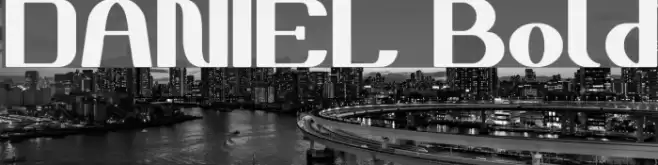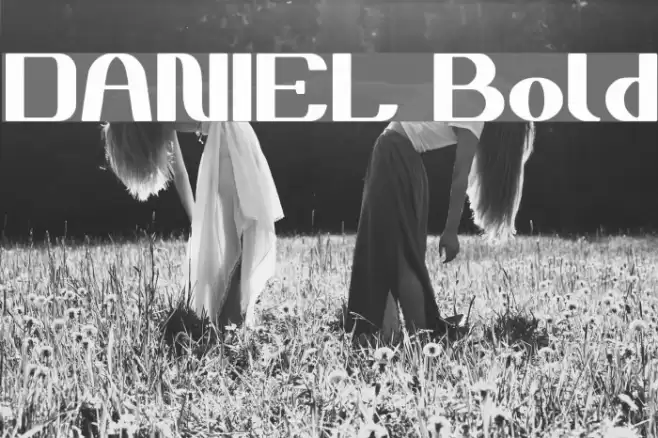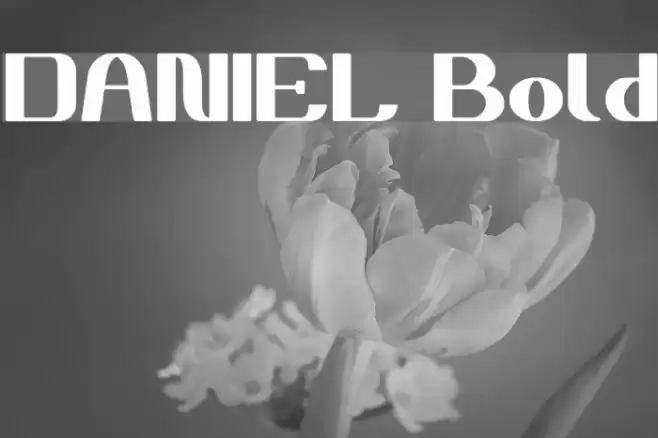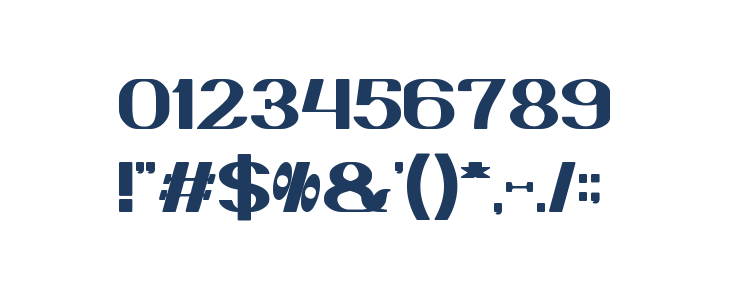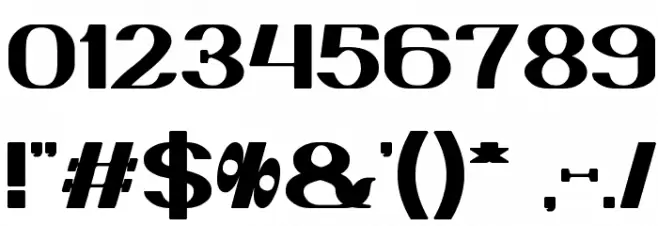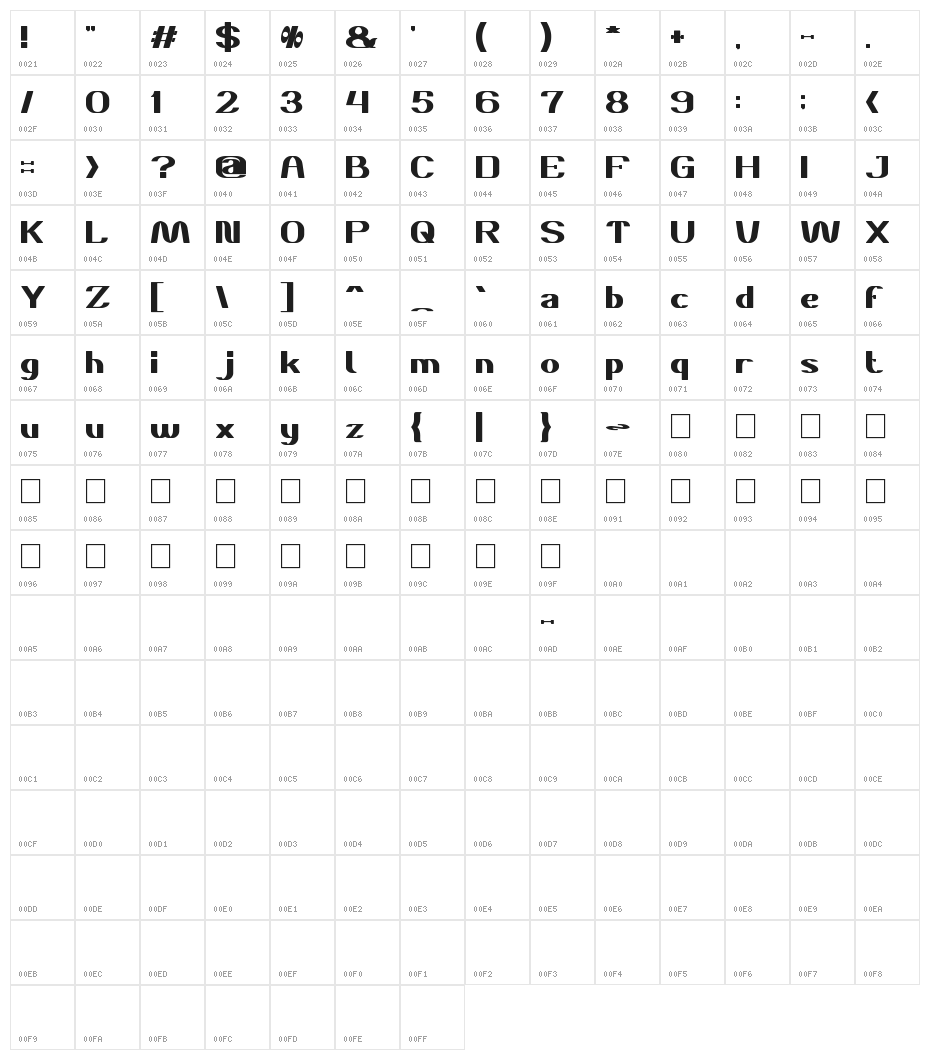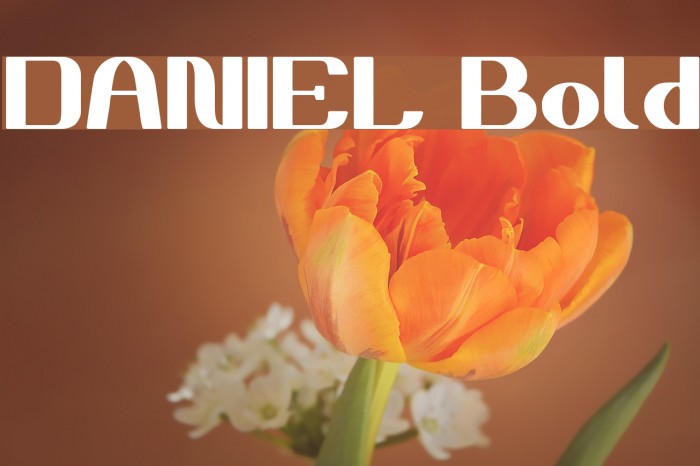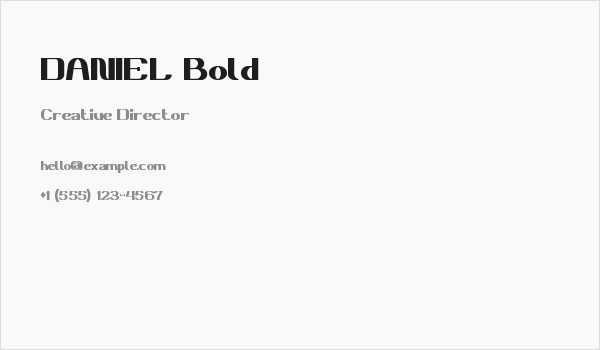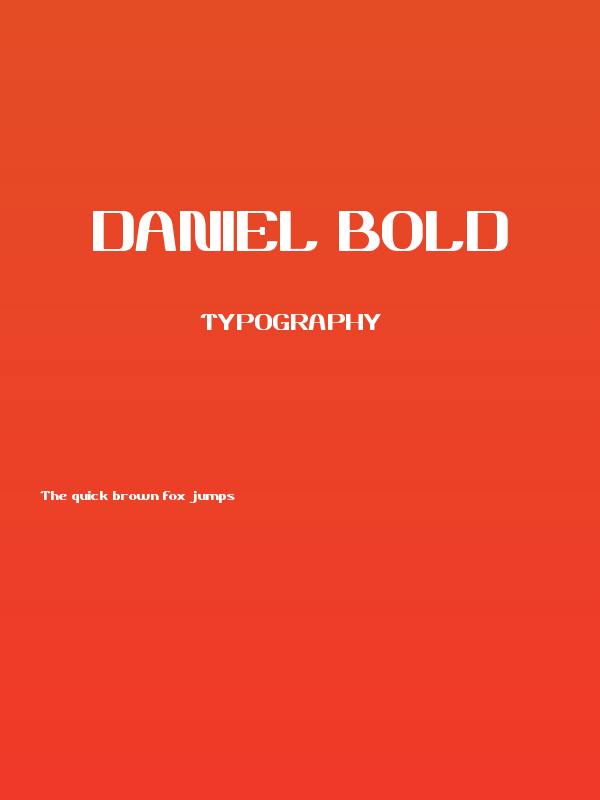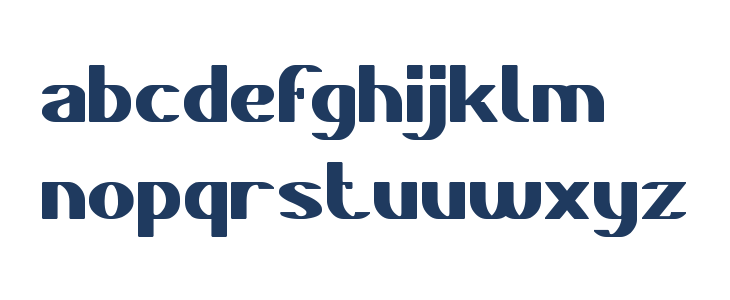
DANIEL Bold Font
DANIEL Bold Description
This font features a bold and modern design with a unique blend of geometric and organic shapes. The uppercase letters are characterized by their strong, solid forms and slightly curved edges, giving them a distinctive and contemporary appearance. The lowercase letters maintain a consistent style, with rounded elements that add a touch of softness to the overall look. The numerals are bold and clear, ensuring readability, while the special characters are designed to complement the font's overall aesthetic. The font's bold weight and modern style make it suitable for a variety of design projects.
A bold, modern font with geometric and organic elements from Uncategorized fonts.
- Proposed Projects: Ideal for branding, headlines, posters, and modern web design.